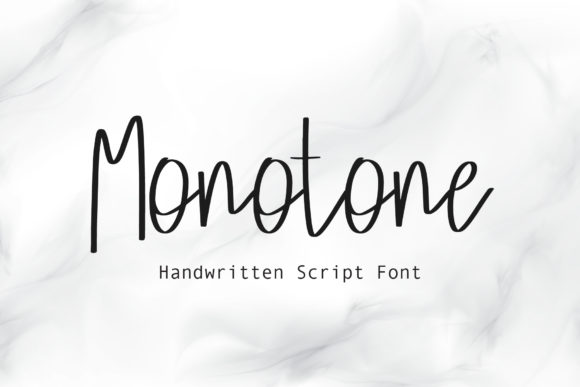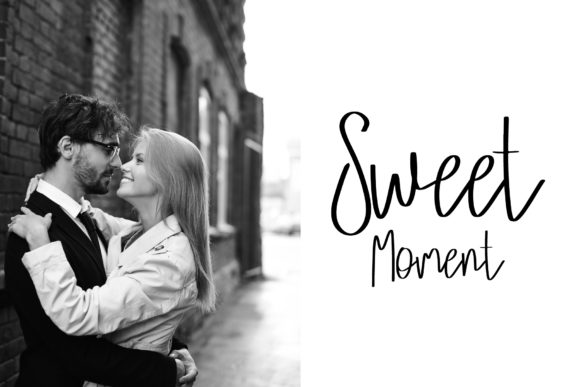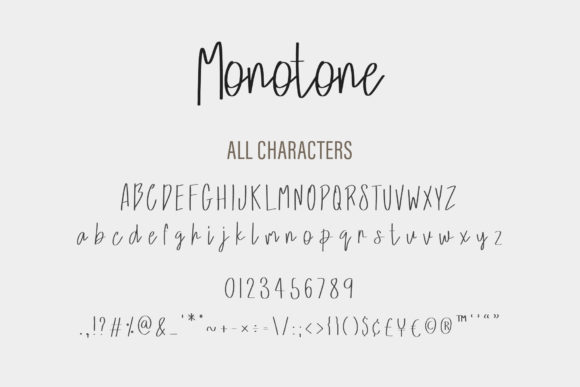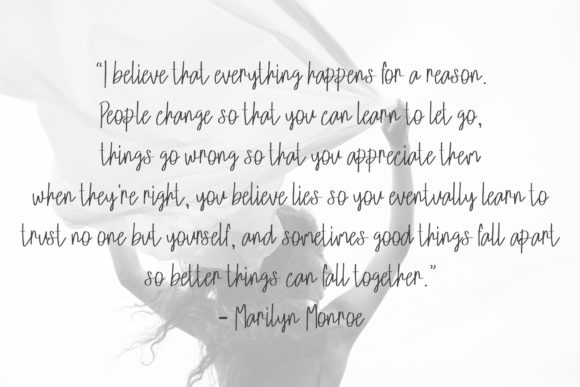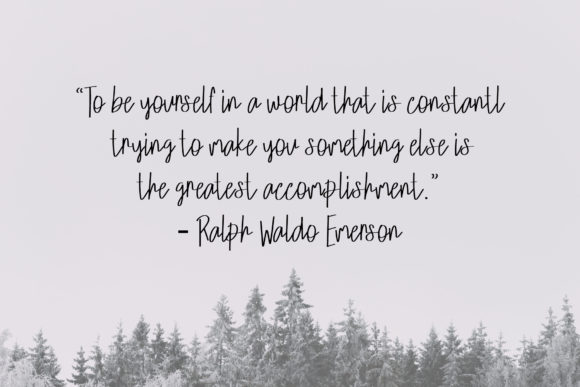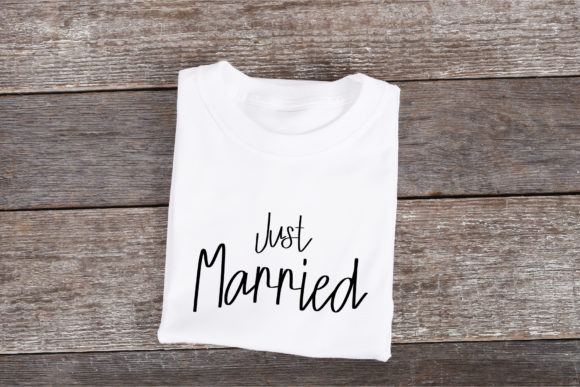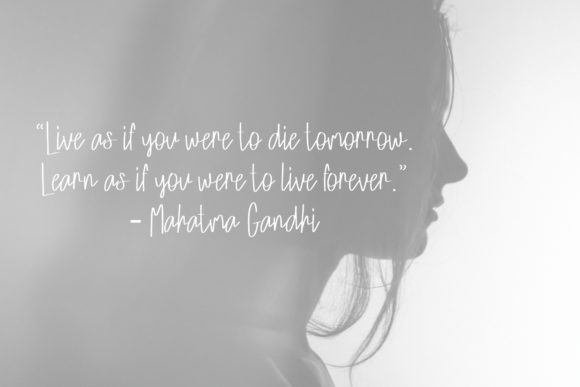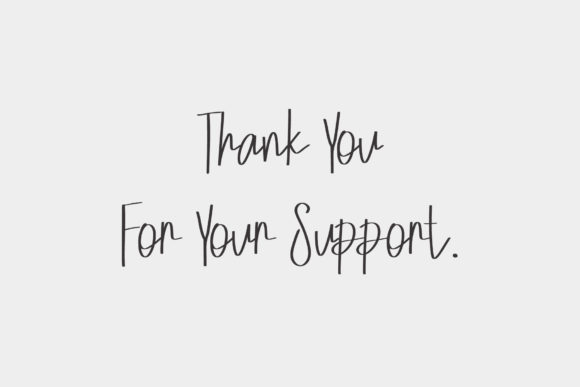
Monotone Font
About Monotone Font
Monotone is a simple and casual handwritten font. It can be used for logos, branding, invitations, cards, wedding card, social media posts and so much more. The possibilities are endless!